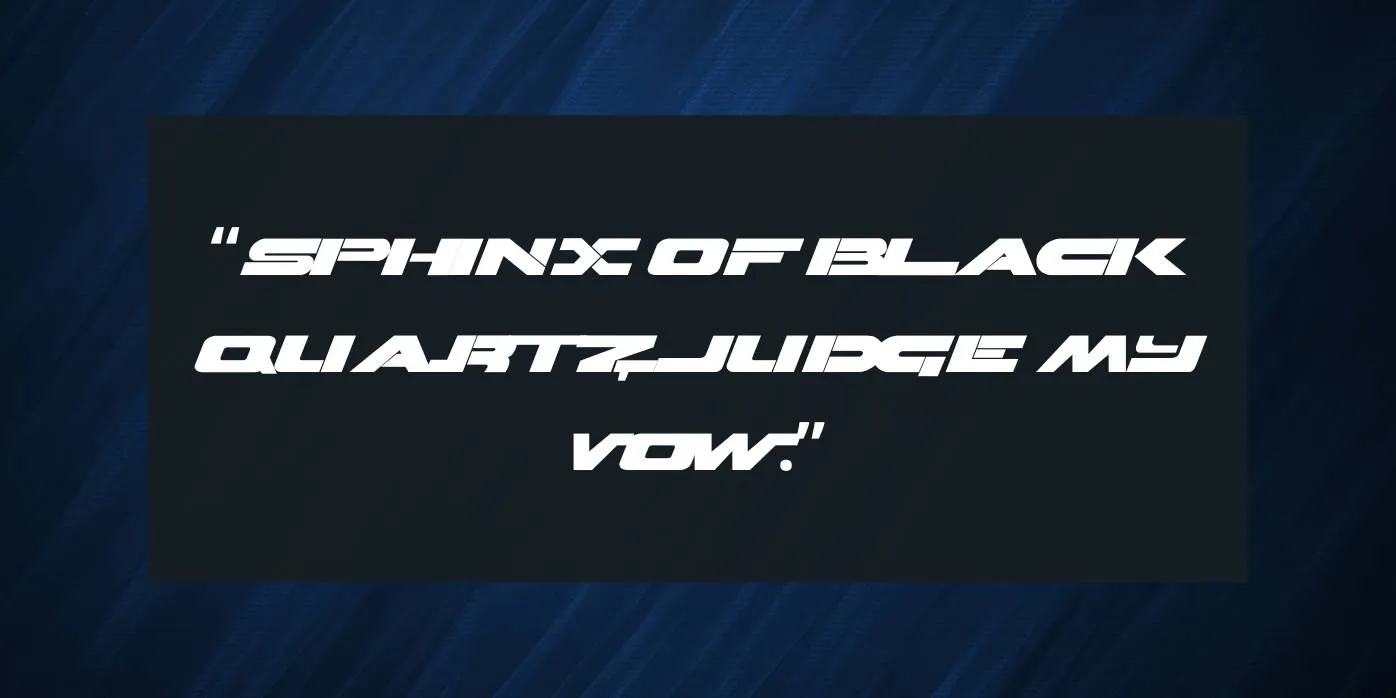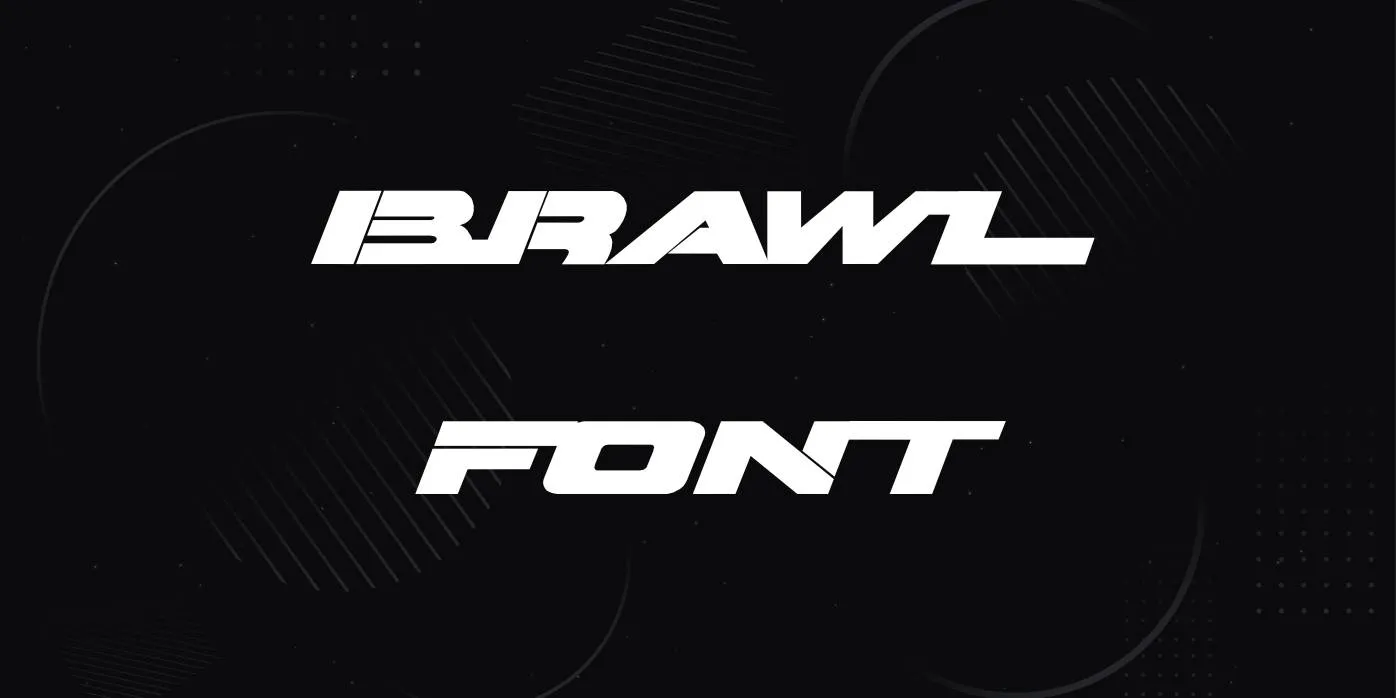
Brawl Font
You are going to read about the techno-type texture. El Gato en la Luna designed this typeface. The texture can be easily obtained from our website. The characters of this typeface are amazing because they are readable, stylish, and attention-catching.